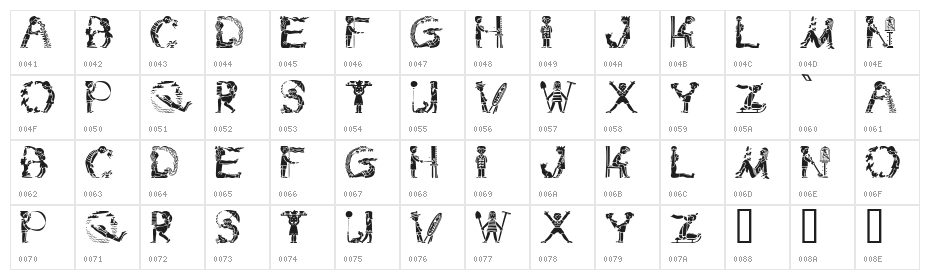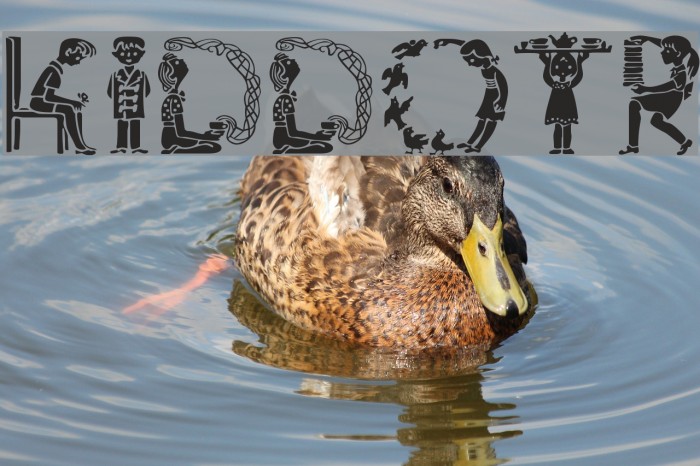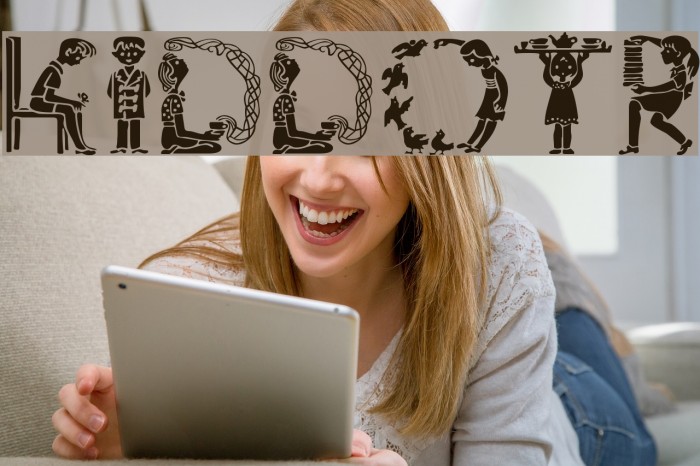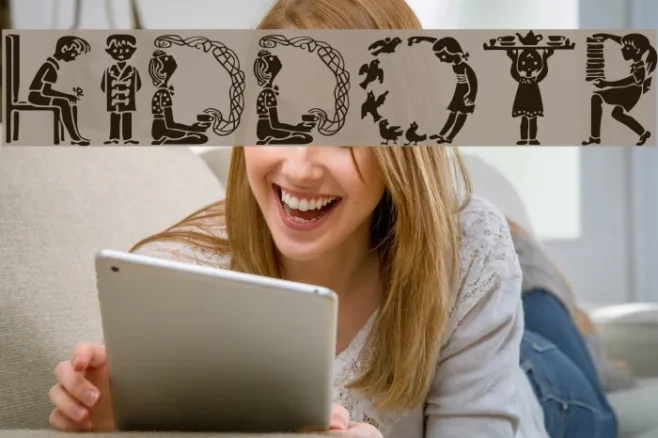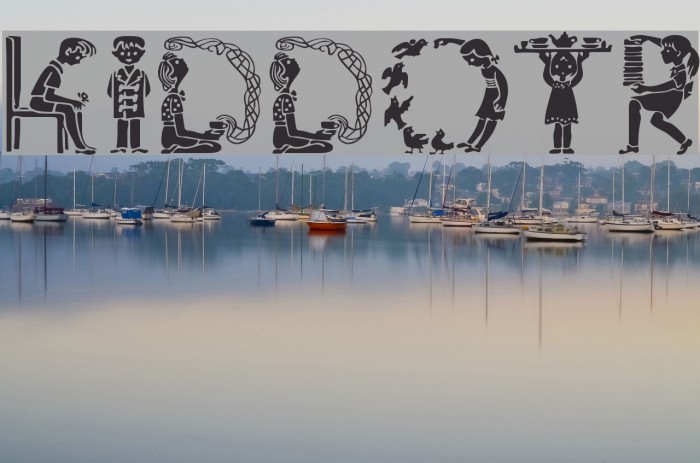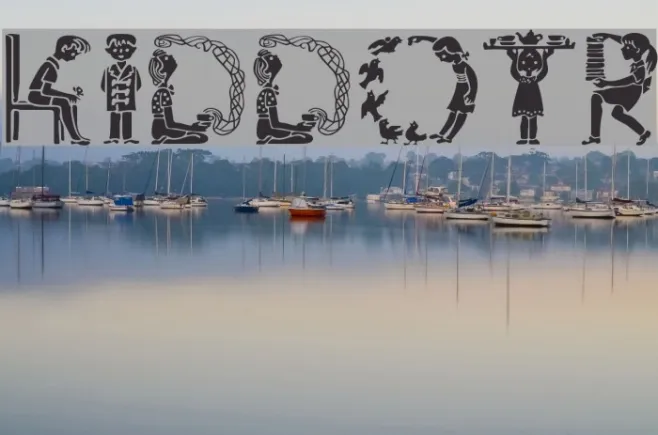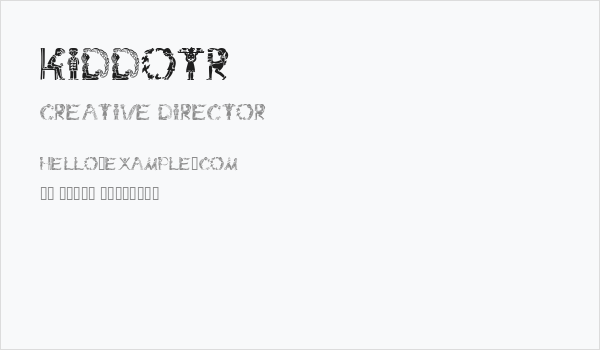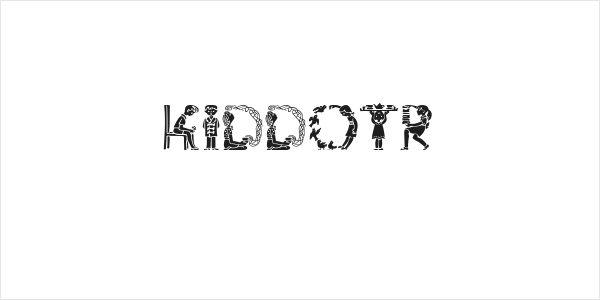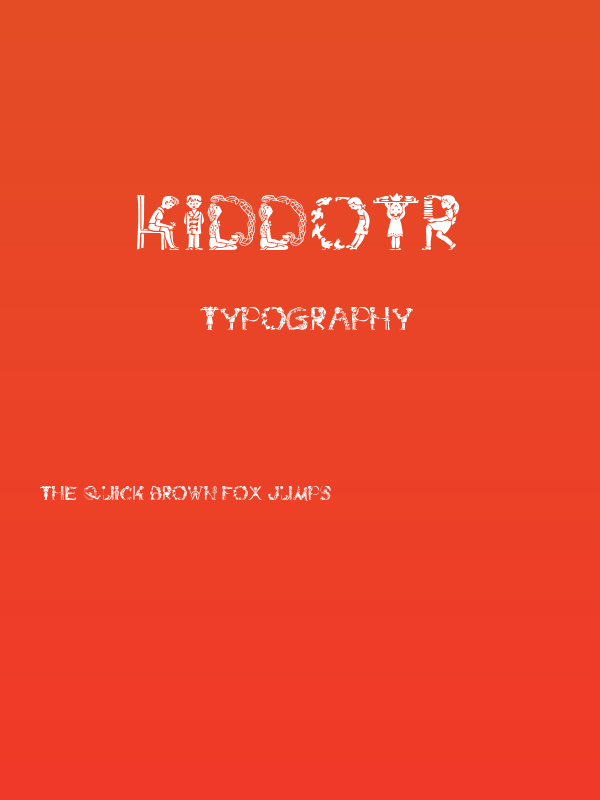
KiddoTR Font
KiddoTR Description
This font features a playful and whimsical design, incorporating elements that resemble children playing or engaging in various activities. Each letter is creatively crafted with illustrations that add a lively and dynamic feel. The uppercase letters are distinct, with each character having unique visual elements that make them stand out. The font lacks lowercase letters and numbers, focusing solely on uppercase characters. The overall appearance is decorative and artistic, making it suitable for projects that require a fun and engaging typeface.
| Overall Style | Playful, Artistic |
| Proposed Projects | Ideal for children's book covers, educational materials, playful posters, and creative branding projects. |